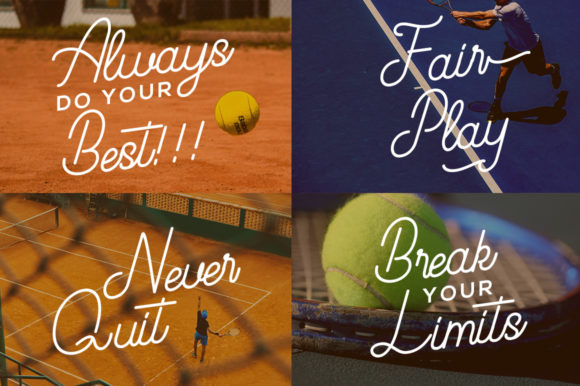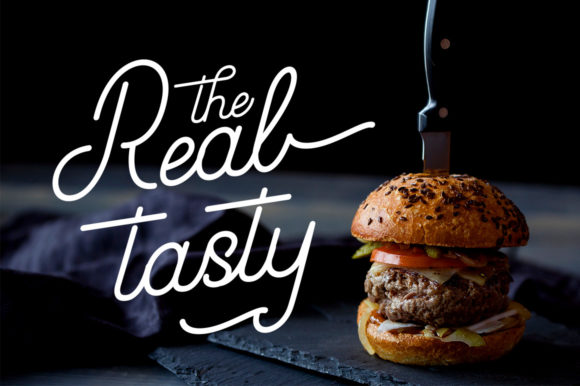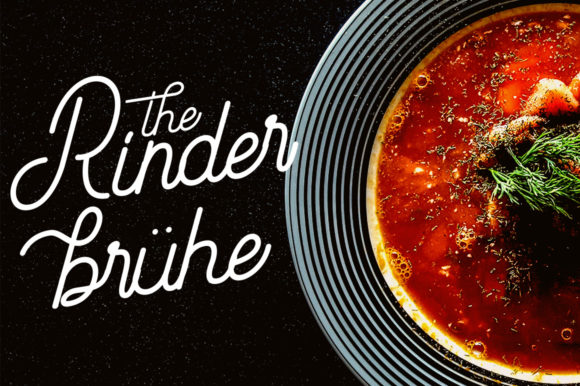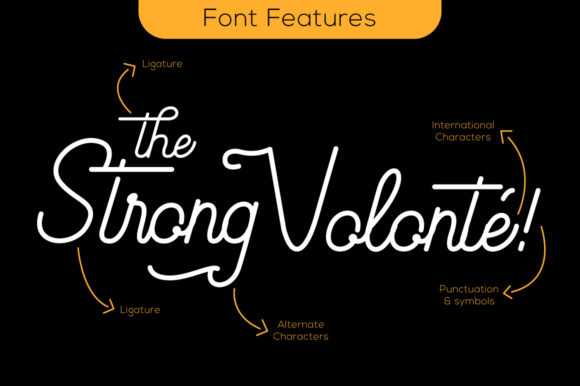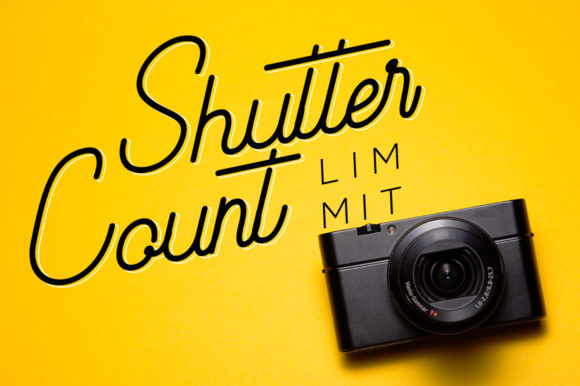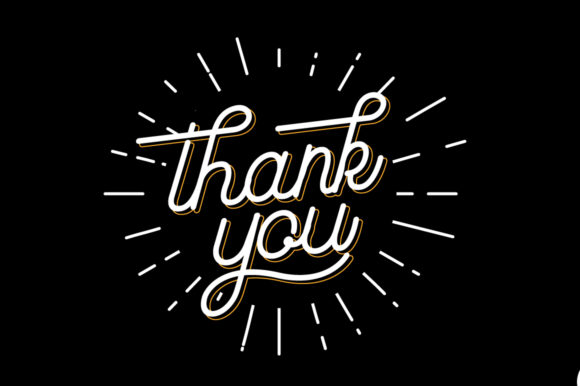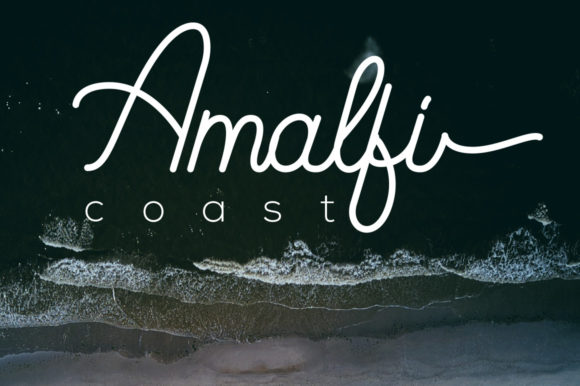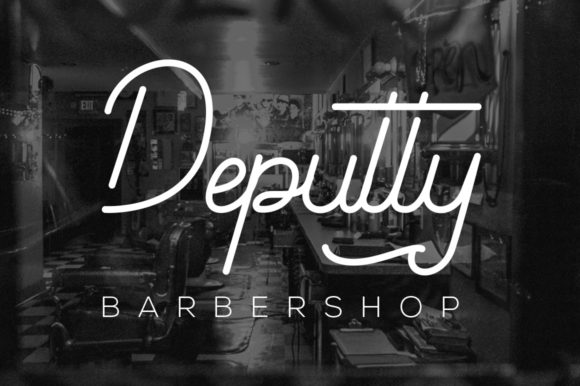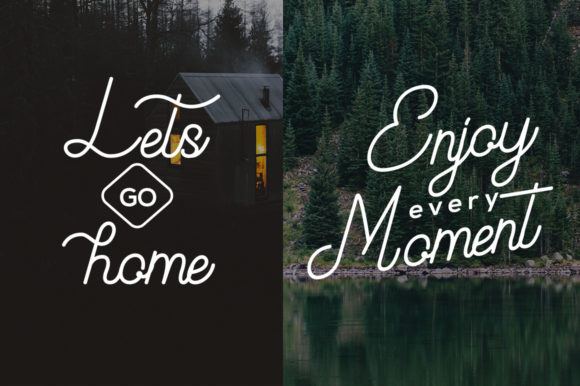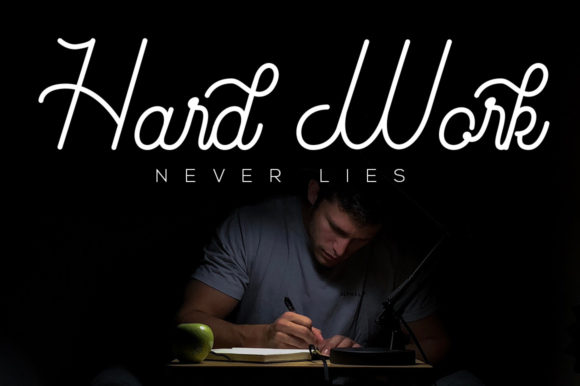
Beauty One Font
About Beauty One Font
The Beauty One is a stylish monoline script. It will give your designs a personal touch with a fresh, curvy and beautiful look.